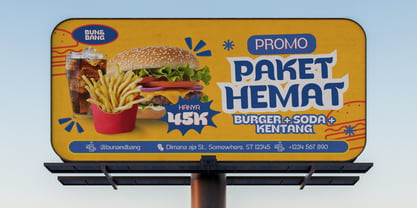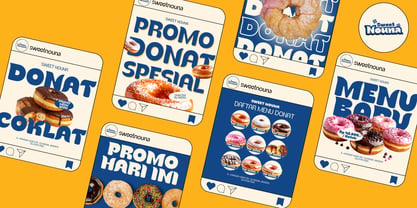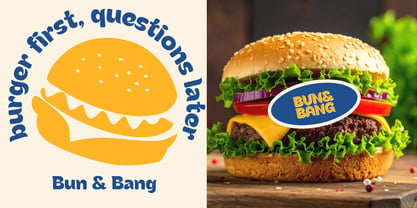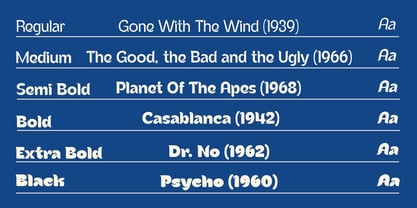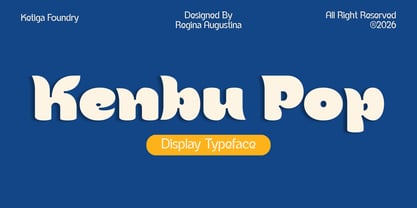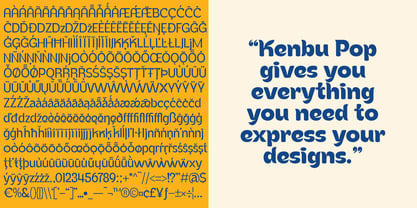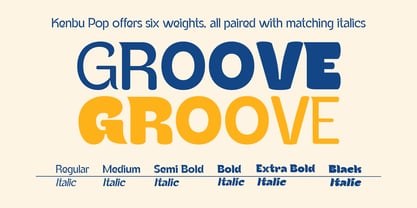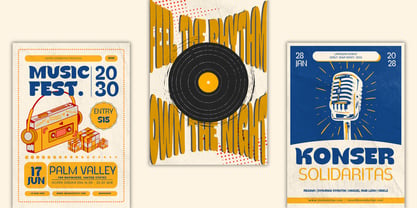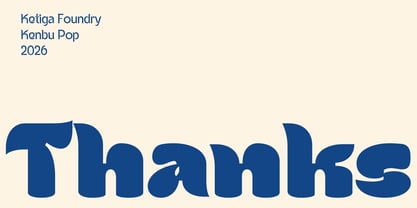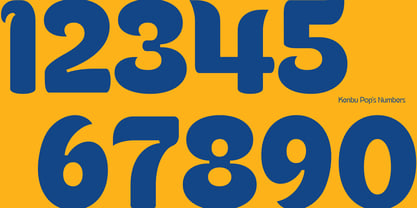
Kenbu Pop
by Ketiga Foundry
The Kenbu Pop Font Family was designed by Reginaa Augustina and published by Ketiga Foundry. Kenbu Pop contains 12 styles and family package options. More about this family
Kenbu Pop is a contemporary display type family that expertly balances bold expression with refined control. Characterized by soft curves and confident proportions, this type family transitions between two distinct attitudes — from chunky, character-rich forms to cleaner, more composed shapes. This versatility provides a flexible system suitable for both statement-making and polished design. Comprising 6 weights, each with a true matching italic, the family offers a total of 12 styles. With meticulous attention to spacing, consistency, and visual flow, Kenbu Pop excels across a wide array of applications, including bold branding, packaging, editorial headlines, and modern identity systems.